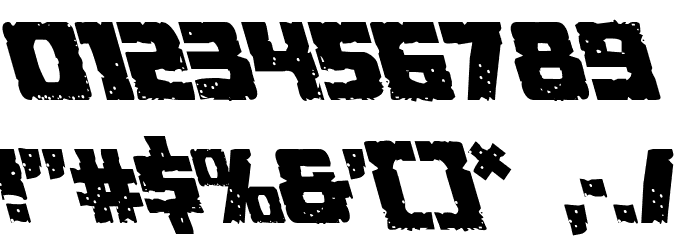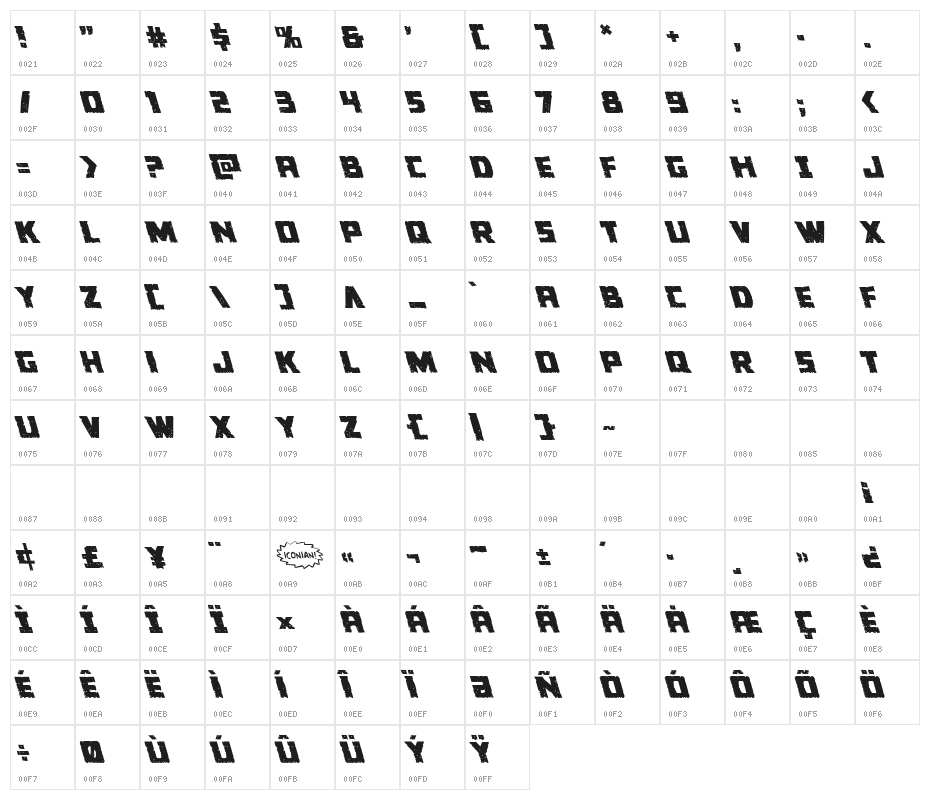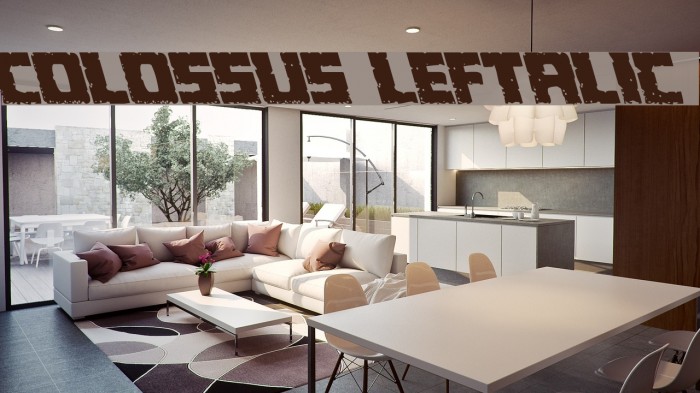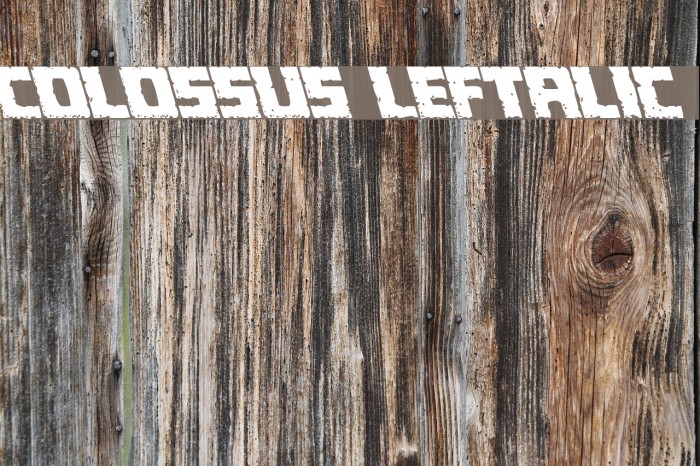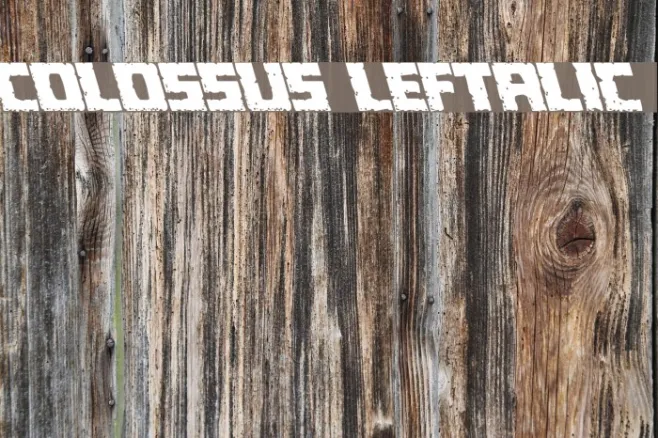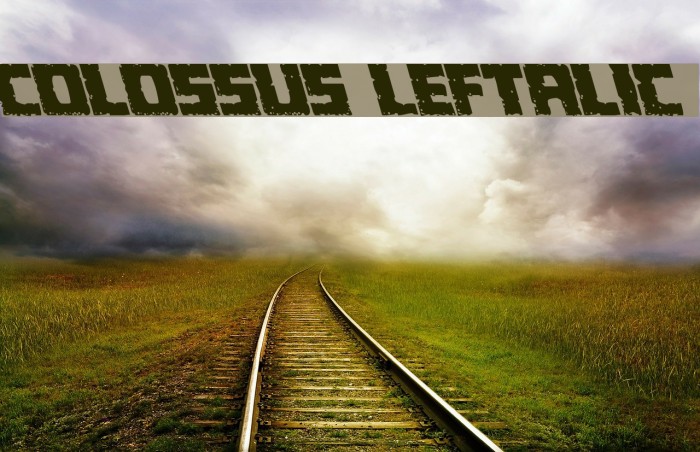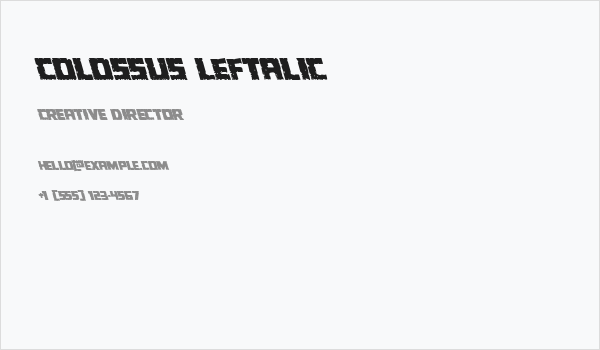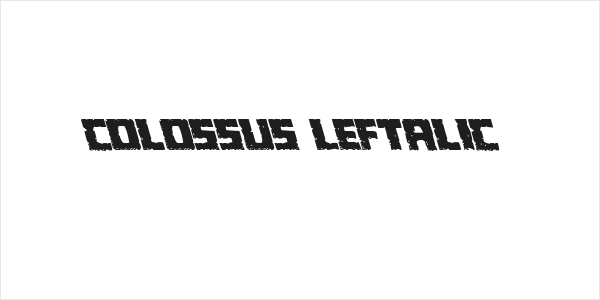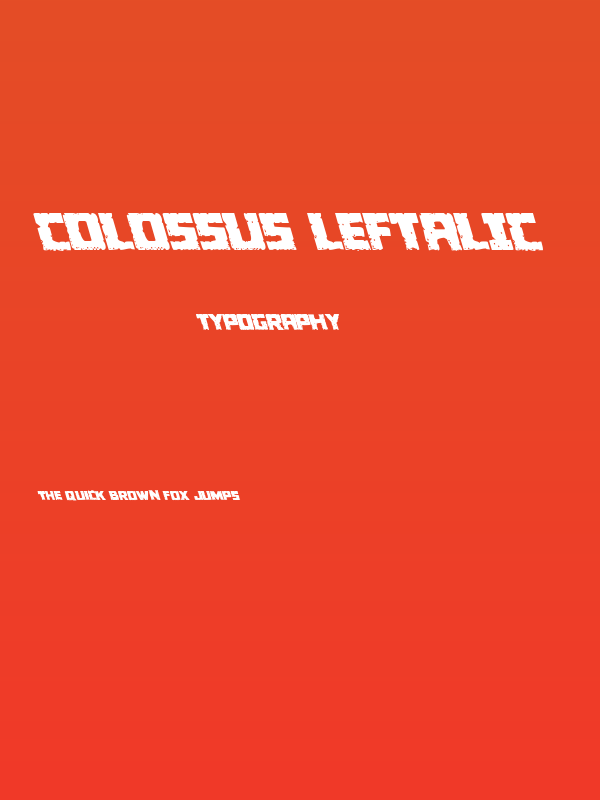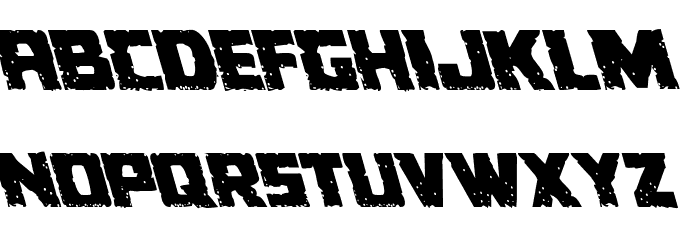
Colossus Leftalic Font
Colossus Leftalic Description
This font exhibits a bold and rugged style, characterized by its distressed and textured appearance. The letters are slightly slanted, giving a dynamic and energetic feel. The uppercase and lowercase letters maintain a consistent weight, with thick strokes and rough edges that suggest a worn or weathered look. The numbers and special characters follow the same design, ensuring uniformity across all glyphs. This font's unique style makes it stand out, perfect for projects that require a strong visual impact.
| Proposed Projects | Ideal for posters, album covers, video game graphics, or any project needing a bold, impactful design. |